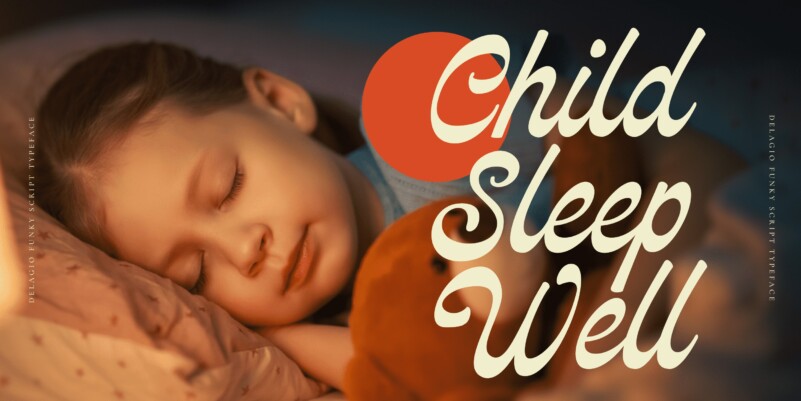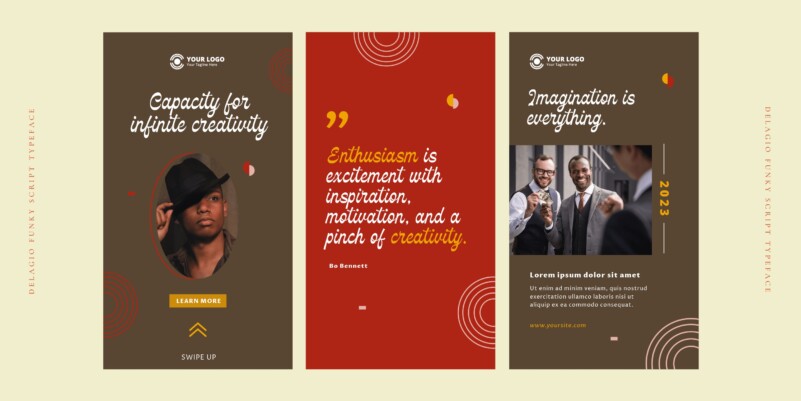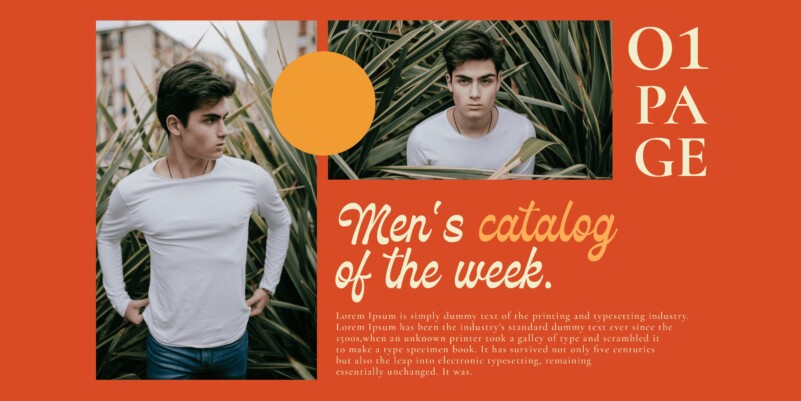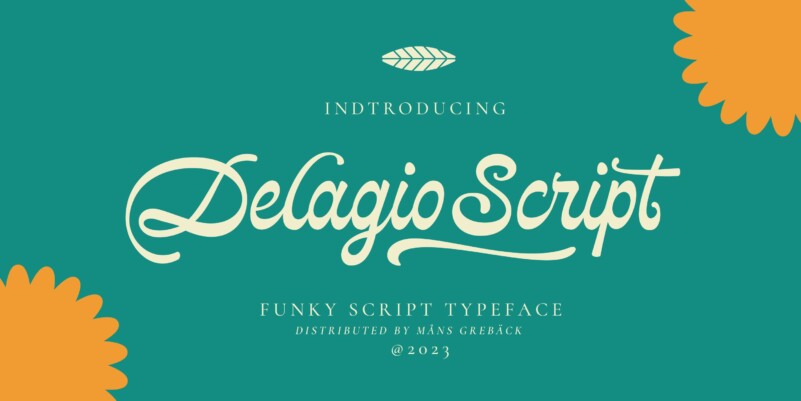
Delagio Script Font
Delagio Script Font is elegant script typeface with contemporary mood and perfect forms, inspired by immortal classic calligraphy. This retro-inspired font is both creative and heavy, making it perfect for designs that require a unique and playful touch. Delagio Script is ideal for projects that seek to convey a sense of fun, humor, and originality.
The creation of Delagio Script traces back to a lucky discovery of a vintage magicians’ promotional posters. The unique blend of whimsy and elegance in Delagio’s lettering were captivating enough to form the base of a typeface that embodied the distinctive charm of entertaining calligraphy strokes. Thus, Delagio Script was born, encapsulating the spirit of serendipity and the magic of a forgotten world.